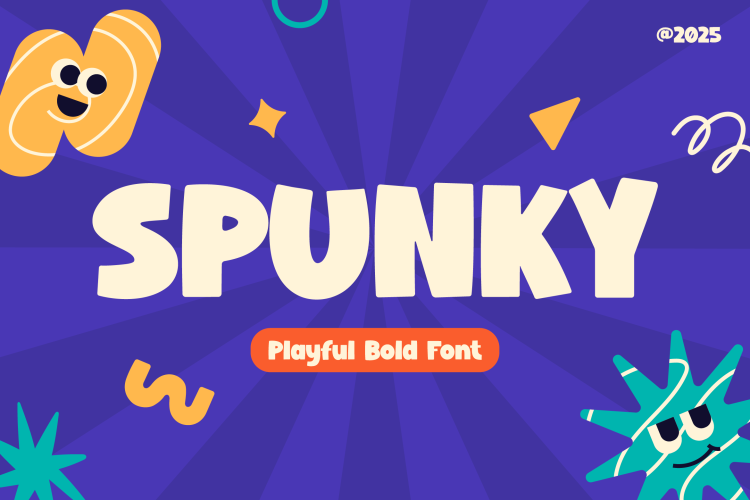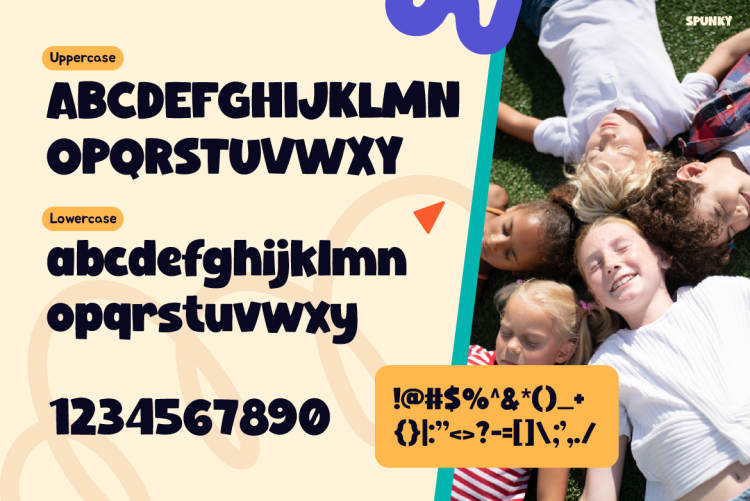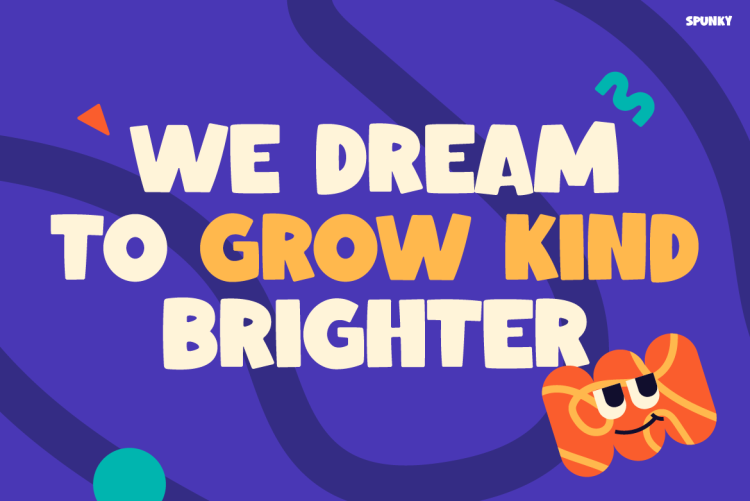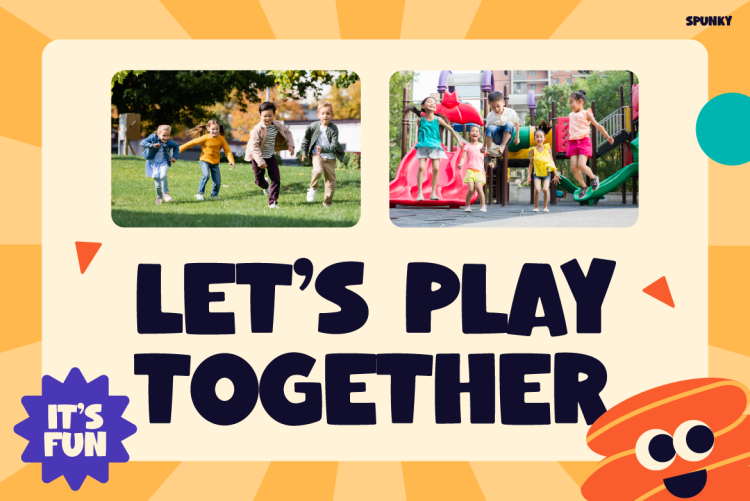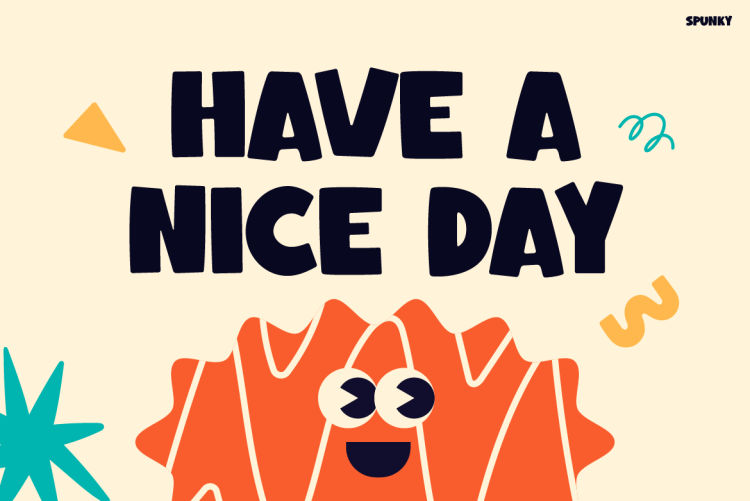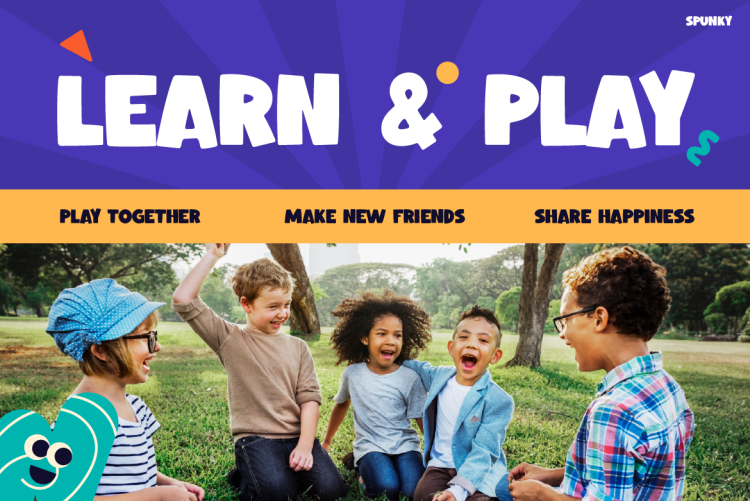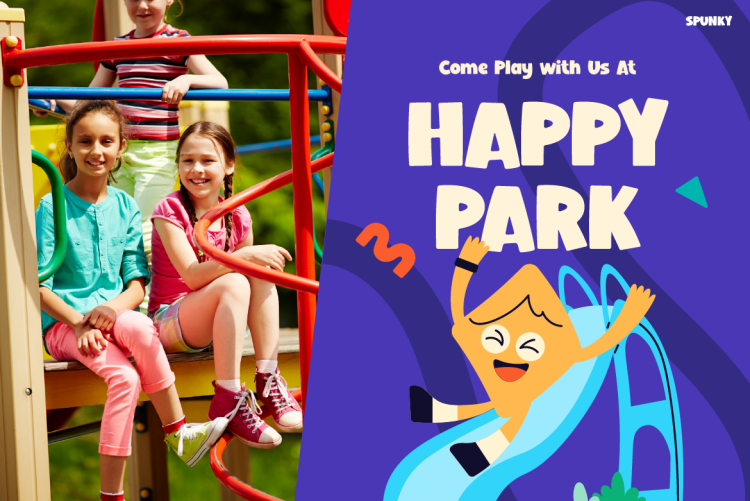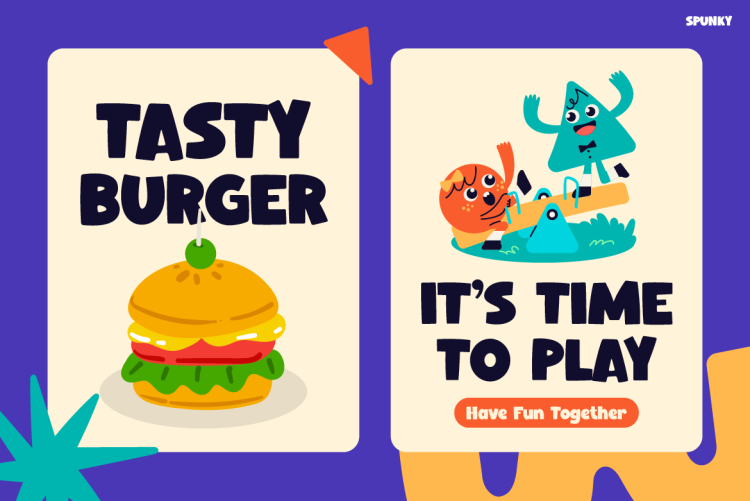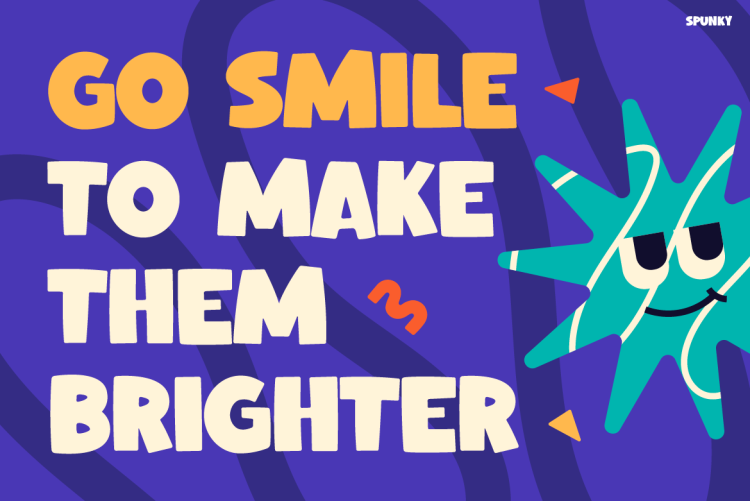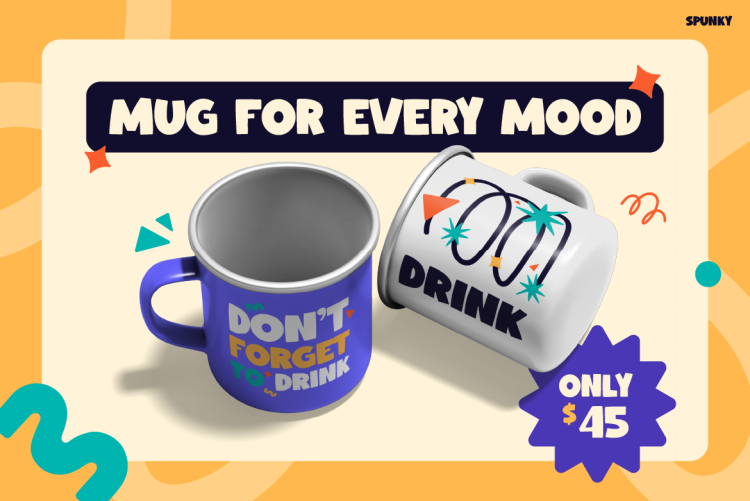
Kids Font SPUNKY โ Friendly & Cheerful
Kids Font SPUNKY brings an energetic and cheerful look to every design, making it perfect for fun, colorful, and creative projects. This font stands out because it combines chunky shapes with smooth, rounded curves, giving each letter a joyful and expressive personality. Moreover, its playful appearance instantly captures attention and helps your message feel warm, friendly, and easy to read. With its bold character style, Kids Font SPUNKY adds excitement to titles, labels, posters, and educational materials.
Additionally, the fontโs clear structure ensures excellent readability, even in vibrant or busy layouts. Its strong strokes create balance, while its adorable curves add charm. As a result, your designs feel both lively and well-organized. Because of this, SPUNKY works great for kidsโ branding, classroom visuals, playful logos, childrenโs books, and event promotions. Every word becomes more fun, and every sentence feels full of life.
Who Itโs For & Where It Works Best
Kids Font SPUNKY suits designers and creators who want to build visuals filled with joy, color, and youthful energy. It works beautifully for schools, preschool programs, childrenโs clothing brands, toy packaging, and kid-focused content creators. Furthermore, it enhances social media posts, birthday invitations, storytelling graphics, and educational worksheets. Whether you design for print or digital use, this font helps your work stand out with a friendly, approachable style.
Since the font carries such a happy tone, it strengthens emotional connection and invites young audiences to engage. Moreover, its playful personality adds character to any theme that needs cuteness, excitement, or creativity.
Closing Statement
Kids Font SPUNKY gives every project a spark of joy. It transforms simple layouts into cheerful visuals that feel inviting and full of imagination. So, if you want to create designs that smile, shine, and inspire kids, SPUNKY is the perfect choice. Bring your ideas to life with a font that makes every word fun!